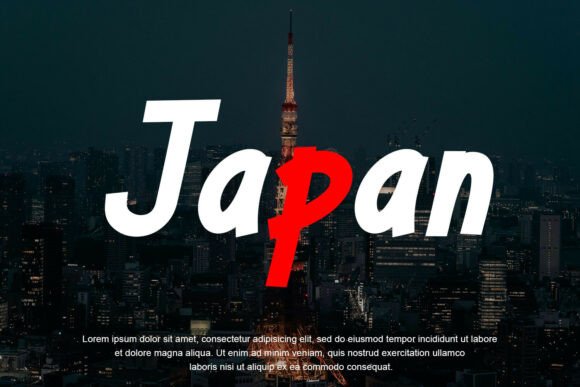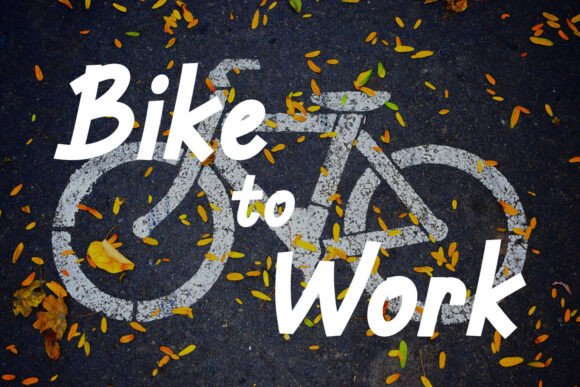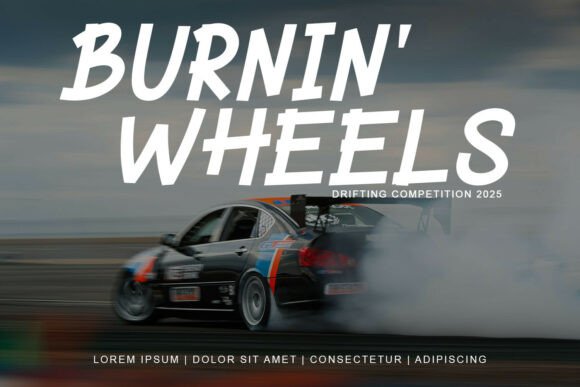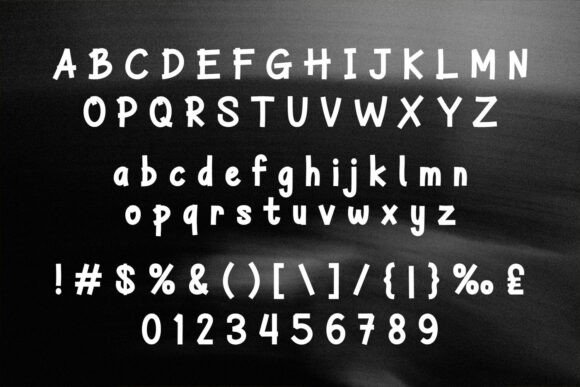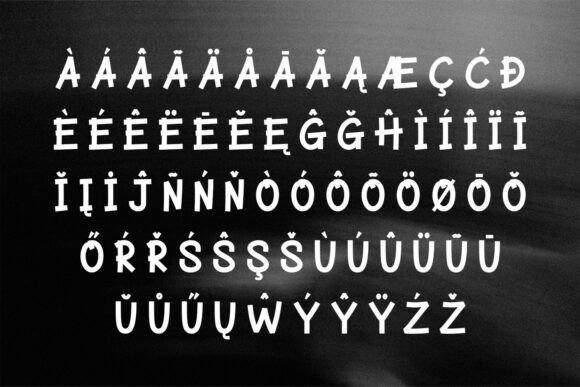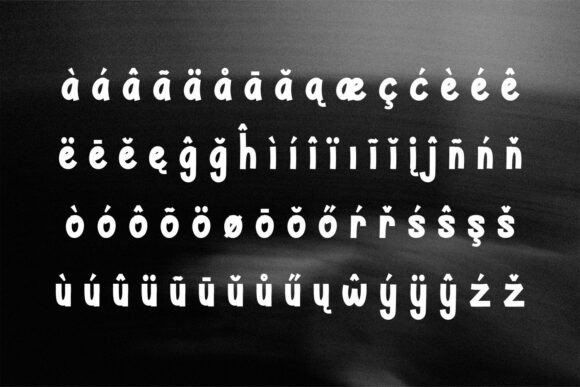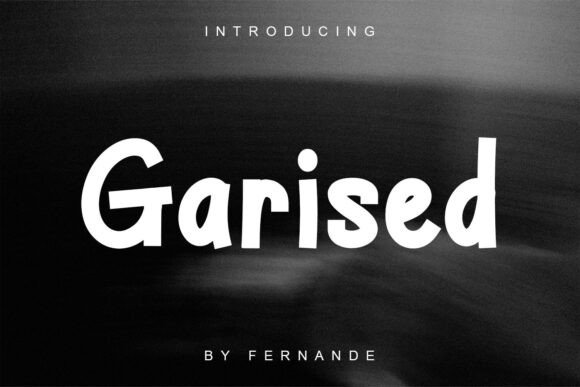
Unleash Your Creativity with Garised Font: The Ultimate Urban Typeface
Are you tired of using the same old fonts in your designs? Look no further than Garised Font, a fearless and vivacious handwritten script typeface that’s taking the design world by storm. With its gritty textures, lively lines, and fluent rhythm, this font embodies the spirit of unscripted creativity and contemporary street-style ethos.
The Inspiration Behind Garised Font
Garised Font is more than just a typeface – it’s a movement. Inspired by the raw energy of urban artistry, this font captures the essence of unrefined sketch strokes and brings them to life on your canvas. Whether you’re a designer, artist, or crafter, Garised Font is the perfect tool to add a touch of edginess and individuality to your projects.
From posters and brand identities to album covers, fashion statements, social media visuals, and striking headlines, Garised Font is the ultimate versatile typeface. Its gritty yet artistic persona makes it the dream choice for innovative designers seeking to infuse their projects with individuality and charm.
Key Features of Garised Font
• Gritty textures: Add a touch of urban grit to your designs with Garised Font’s unique textures that give your text a raw, hand-crafted look.
• Lively lines: The font’s dynamic lines and curves bring a sense of energy and movement to your designs, making them impossible to ignore.
• Fluent rhythm: Garised Font’s fluent rhythm ensures that your text flows smoothly, making it perfect for long-form content or short, punchy headlines.
• Multilingual support: With support for a broad assortment of Latin-based dialects, Garised Font ensures adaptability across international design projects.
Who is Garised Font for?
Garised Font is perfect for:
• Graphic designers: Looking for a unique and versatile typeface to add to their arsenal.
• Artists and crafters: Seeking to add a touch of urban grit to their work.
• Brands and businesses: Wanting to stand out from the crowd with a bold and eye-catching visual identity.
• Social media enthusiasts: Looking to elevate their online presence with striking visuals.
Garised Font is more than just a typeface – it’s a statement. With its fearless and vivacious personality, this font is sure to elevate your designs and make them stand out from the crowd. Whether you’re a seasoned designer or just starting out, Garised Font is the perfect tool to add a touch of urban grit and individuality to your projects. So why wait? Download Garised Font today and unleash your creativity!